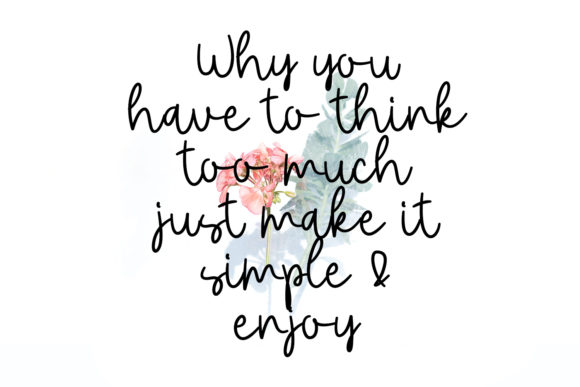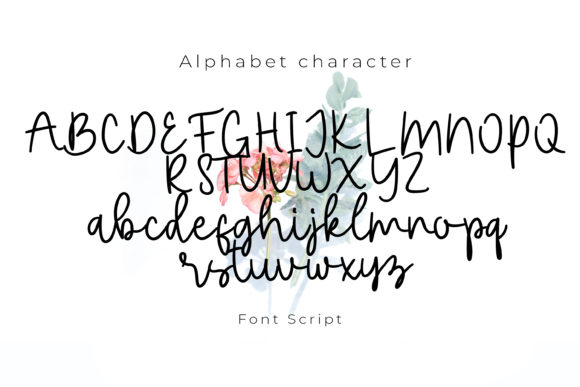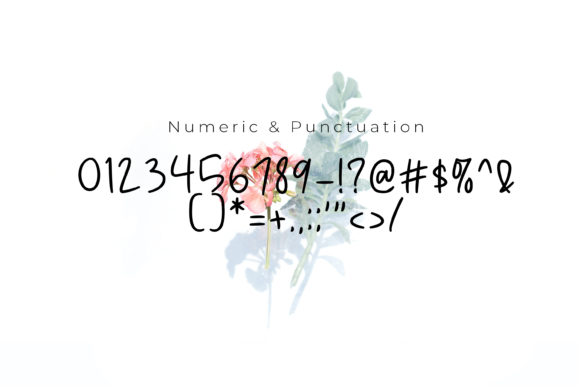
Unlocking the Power of Beauty Font: Elevate Your DIY Projects with a Brush Pen and Pencil Touch
When it comes to adding a personal touch to DIY projects, the right font can make all the difference. Imagine a font that exudes warmth, authenticity, and a dash of handmade charm. Welcome to the world of Beauty Font, a stunning handwritten font that pairs the elegance of a brush pen with the simplicity of a pencil. In this article, we’ll explore the unique features of Beauty Font and how it can bring your DIY projects to life.
Handwritten fonts have a way of captivating audiences with their unique, human touch. They evoke emotions and convey a sense of personality that digital fonts often can’t replicate. Beauty Font takes this concept to the next level by combining the fluidity of a brush pen with the subtlety of a pencil. The result is a font that looks incredibly endearing and authentic, perfect for designers and crafters looking to add a personal touch to their work.
What Makes Beauty Font So Special?
So, what sets Beauty Font apart from other handwritten fonts? Here are a few key features that make it truly special:
• Unique pairing of brush pen and pencil: The combination of these two traditional writing tools creates a distinctive look that’s both elegant and playful.
• Handwritten charm: Beauty Font is carefully crafted to mimic the imperfections and nuances of handwritten text, giving it a warm and inviting feel.
• Versatility: Whether you’re working on a DIY project, creating social media graphics, or designing a logo, Beauty Font adapts seamlessly to any context.
• Easy to read: Despite its handwritten nature, Beauty Font remains highly legible, making it perfect for use in a variety of applications.
Bringing DIY Projects to Life with Beauty Font
So, how can you use Beauty Font to elevate your DIY projects? Here are a few ideas to get you started:
• Journaling and scrapbooking: Add a personal touch to your journal entries or scrapbook pages with Beauty Font. Its handwritten charm and mix of brush pen and pencil strokes will make your pages truly special.
• Handmade cards and invitations: Create one-of-a-kind cards and invitations that stand out from the crowd. Beauty Font is perfect for adding a personal message or title.
• DIY crafts and signs: Whether you’re making a wooden sign, a candle, or a piece of home decor, Beauty Font can add a touch of personality to your project.
• Social media graphics: Use Beauty Font to create eye-catching social media graphics that showcase your personality and style.
Tips for Using Beauty Font Effectively
To get the most out of Beauty Font, here are a few tips to keep in mind:
• Experiment with colors: Beauty Font looks great in a variety of colors, from bold and bright to soft and pastel. Experiment with different hues to find the perfect match for your project.
• Mix and match: Don’t be afraid to combine Beauty Font with other fonts or graphics to create a unique look.
• Keep it simple: While Beauty Font is perfect for adding a personal touch, it’s essential to balance it with negative space and simple design elements.
Beauty Font is a game-changer for designers and crafters looking to add a personal touch to their DIY projects. With its unique pairing of brush pen and pencil strokes, this gorgeous and unique handwritten font is sure to bring any project to life. Whether you’re a seasoned designer or a crafting newbie, Beauty Font is an excellent addition to your toolkit. So why wait? Unlock the power of Beauty Font and take your DIY projects to the next level!